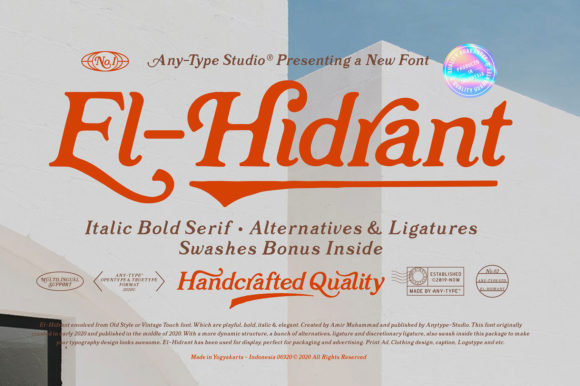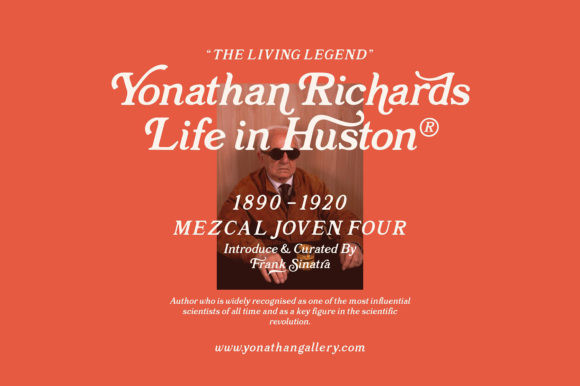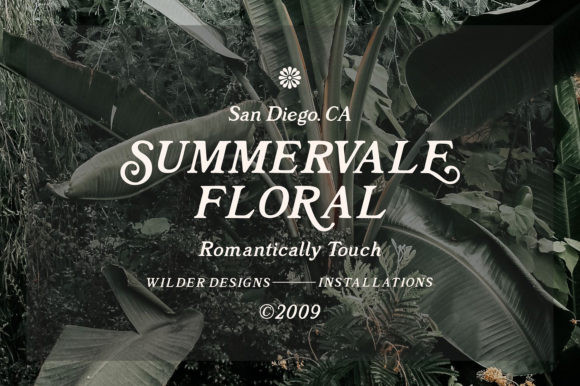
El-Hidrant Font
El-Hidrant is a vintage styled and unique serif font. Masterfully designed to become a true favorite, this font has the potential to bring each of your creative ideas to the highest level!